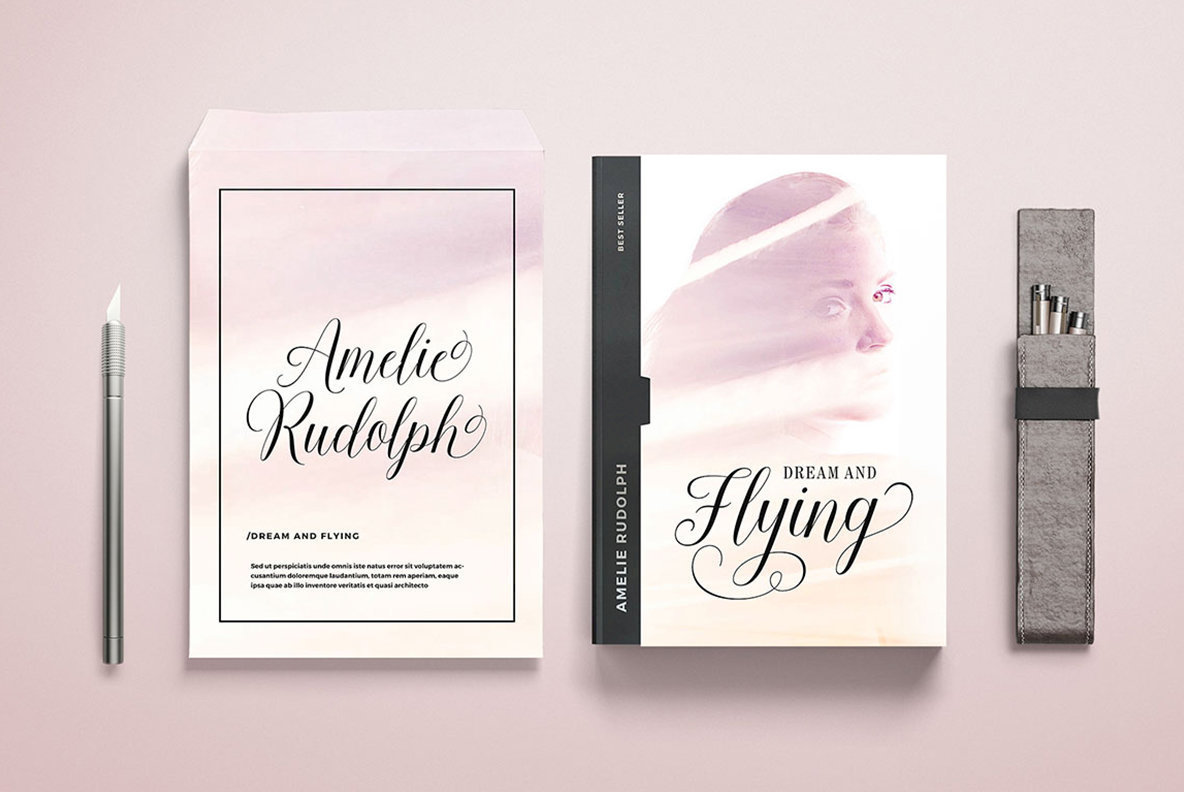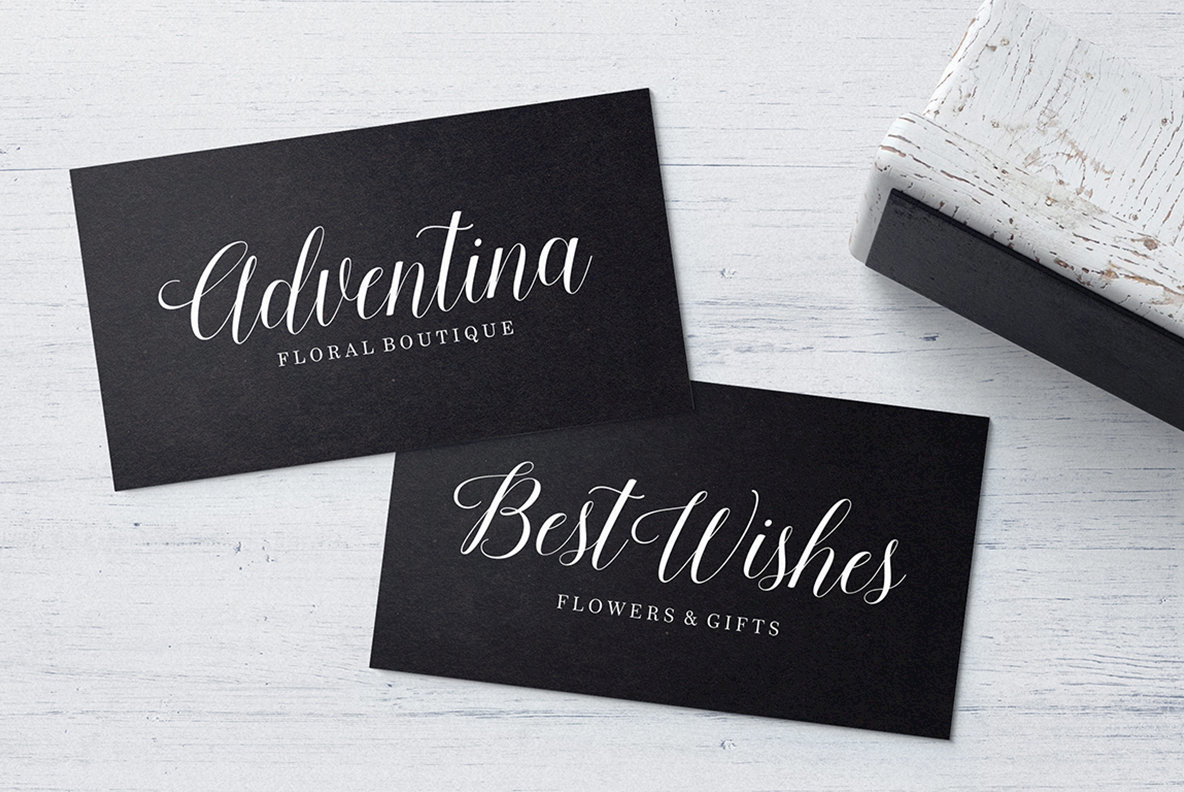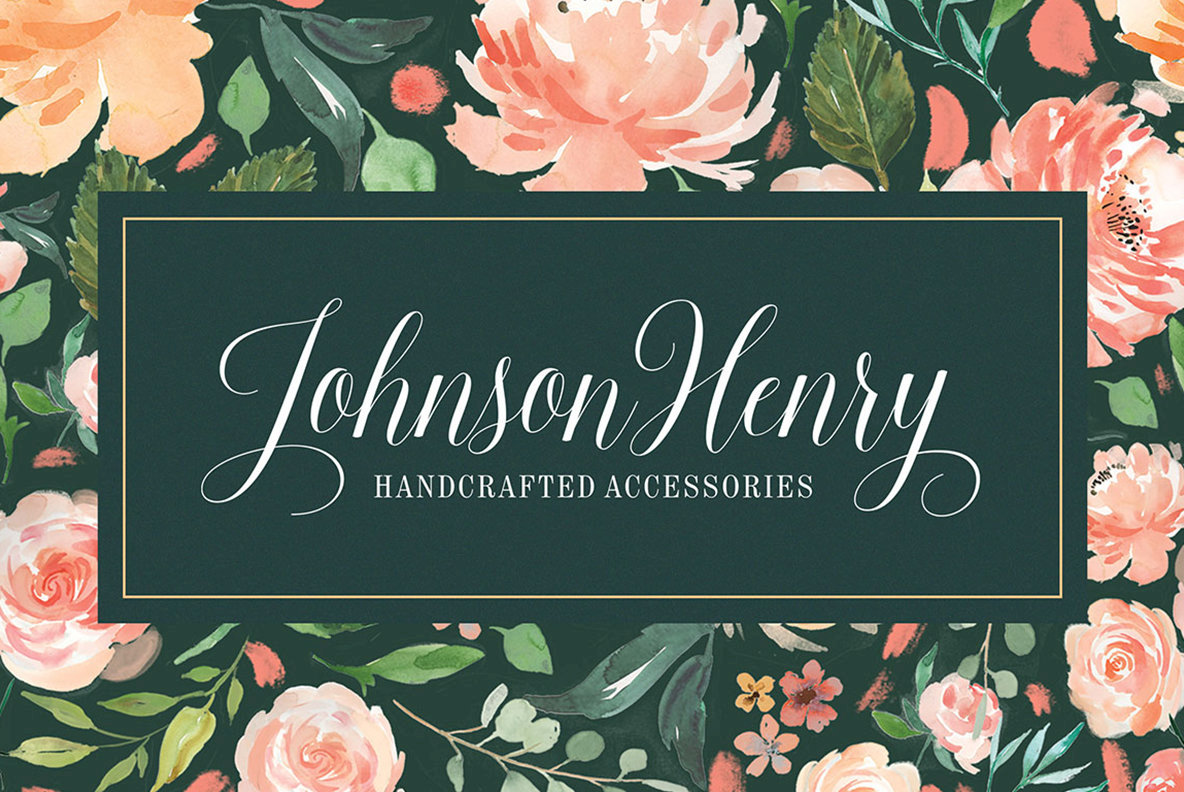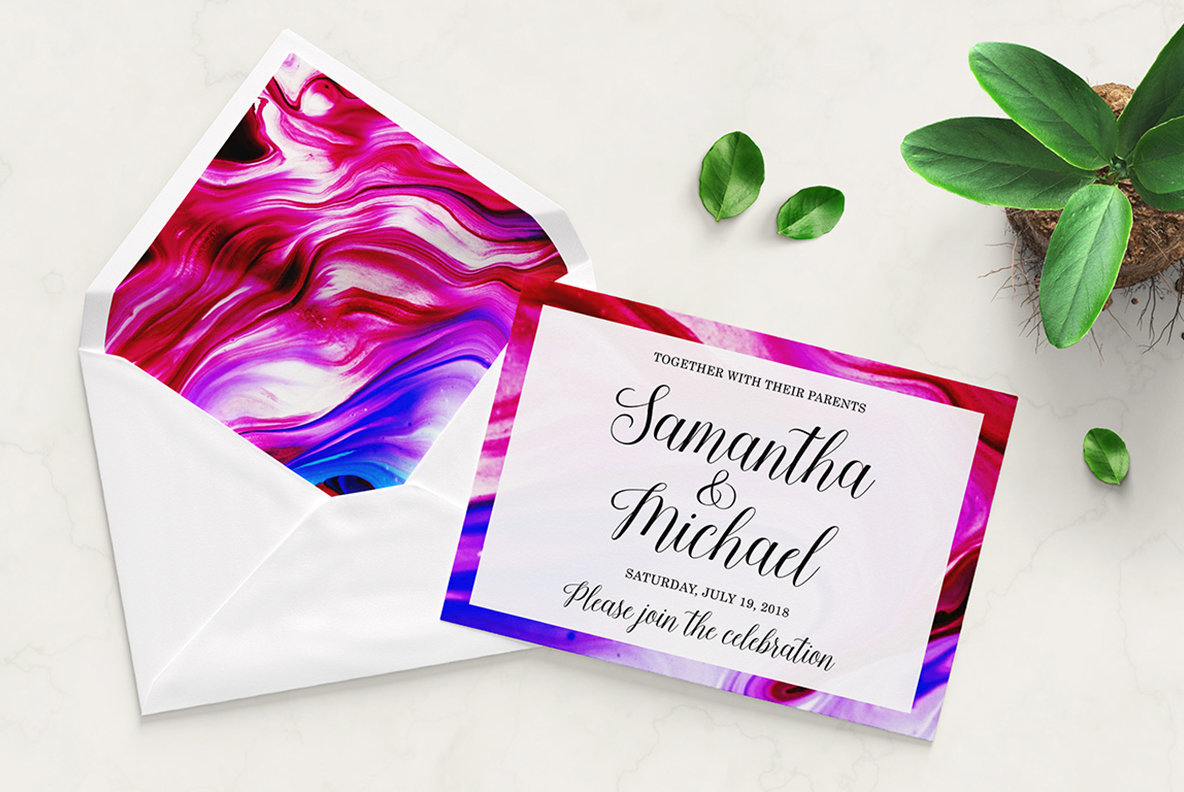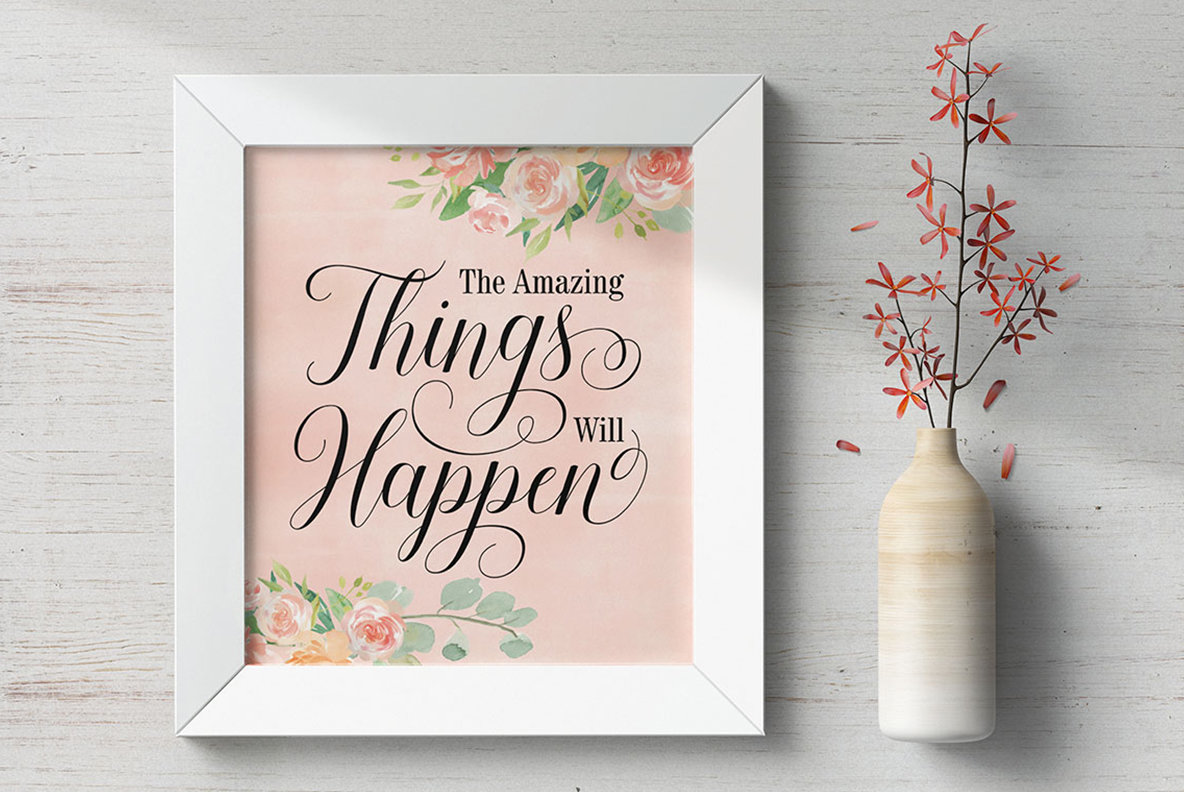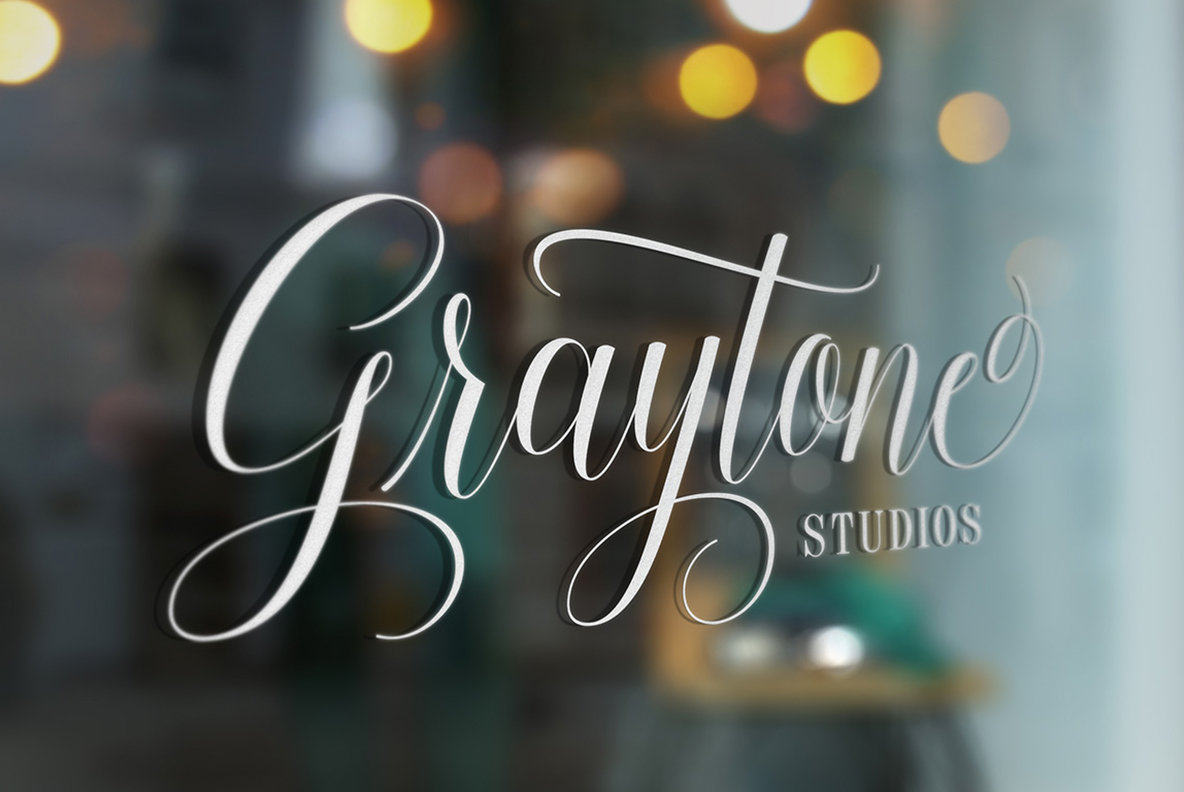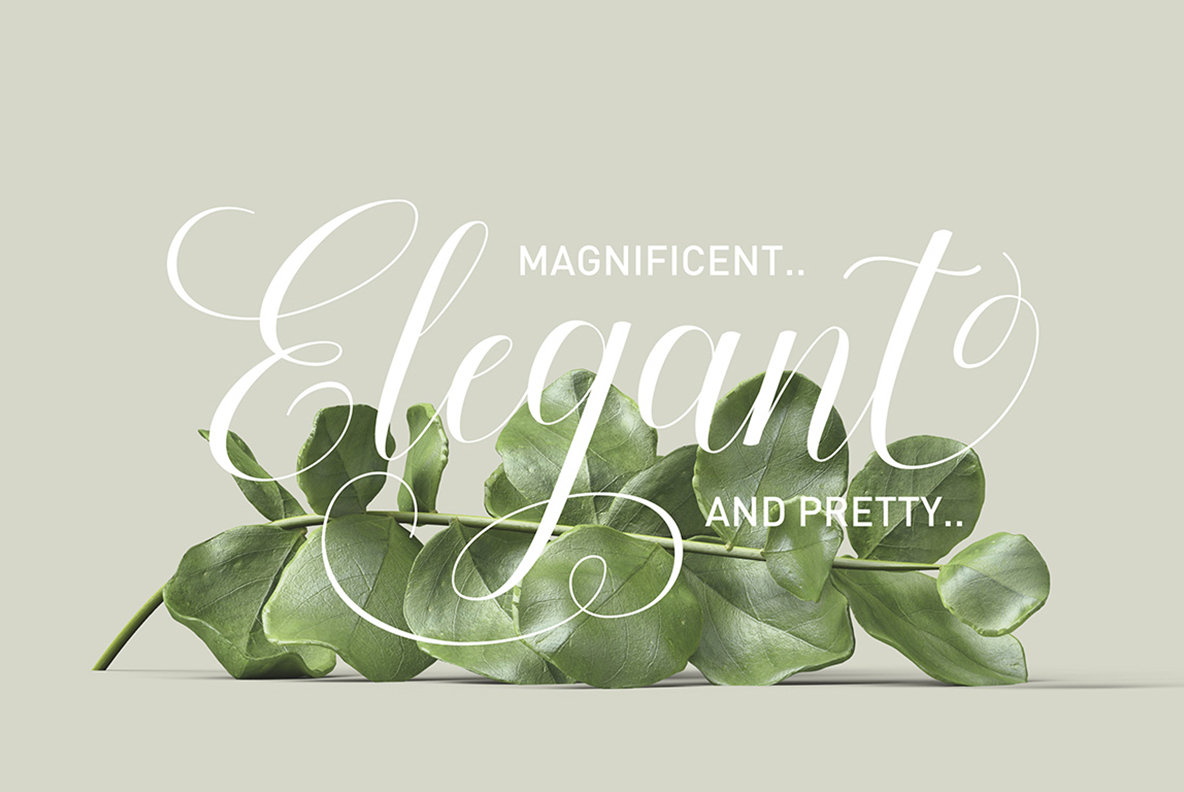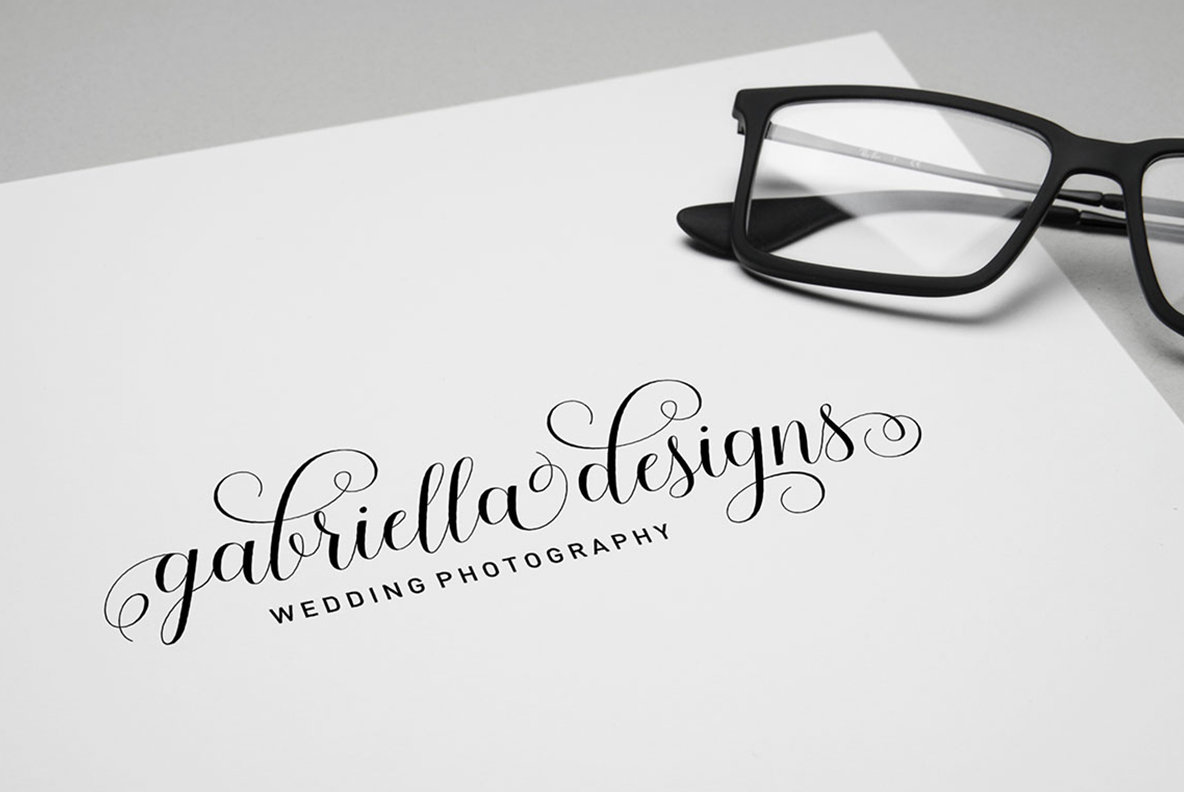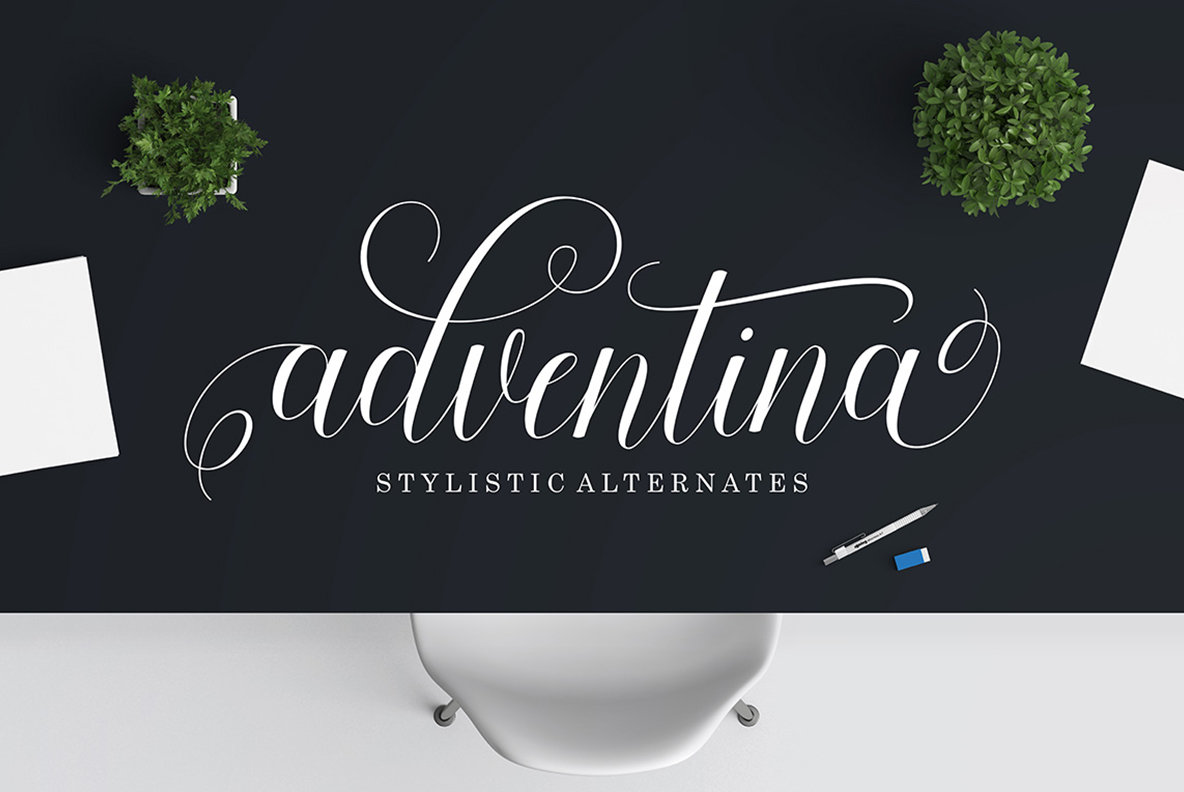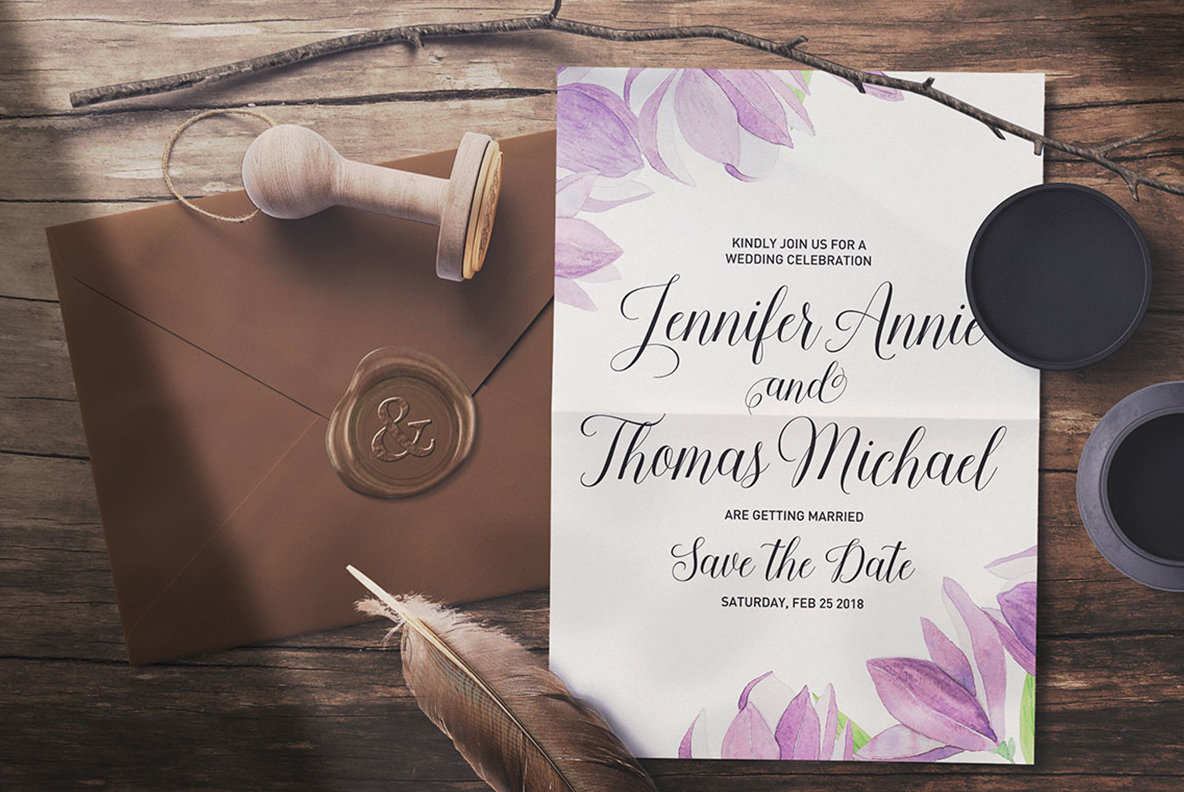
Keneisha: A Handwritten Script of Elegance
Embrace the art of calligraphy with Keneisha, a sophisticated handwritten script font that exudes elegance and style. This font, designed by Seniors Studio, brings a nuanced character to your design projects with its varying baselines and smooth lines. Its clean, feminine aesthetic effortlessly communicates grace, making it an ideal choice for various creative endeavors.
Distinctive Attributes
• Varying Baselines – Adds a dynamic and fluid touch to your typography.
• Elegant Curves – Provides a smooth and refined look.
• Feminine Feel – Contributes to a gentle and stylish presentation.